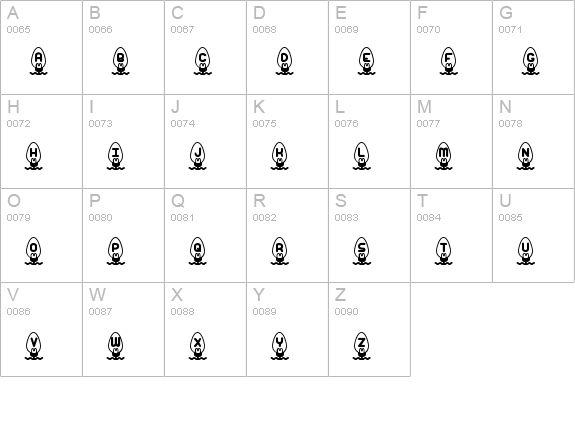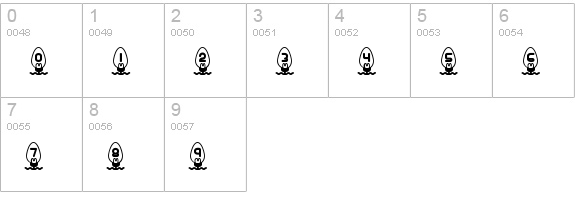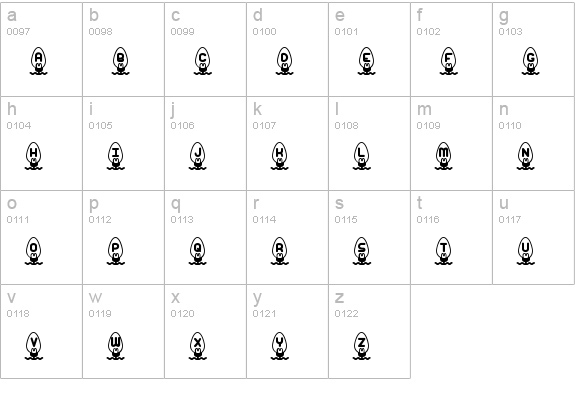
Xmas Lights BRK font is a whimsical and festive typeface that captures the essence of the holiday season with its twinkling lights-inspired design. The playful and decorative elements of this font make it perfect for creating eye-catching Christmas-themed projects, from greeting cards to party invitations. What sets Xmas Lights BRK font apart is its unique and intricate detail, reminiscent of colorful holiday lights strung up in winter wonderlands. The delicate curves and loops of each letter bring a touch of magic and joy to any design. Best of all, Xmas Lights BRK font is completely free for personal and commercial use. You can easily download this delightful font at FontsMarket.com and start spreading the holiday cheer with your creative projects. Let your imagination sparkle and shine with Xmas Lights BRK font this festive season!